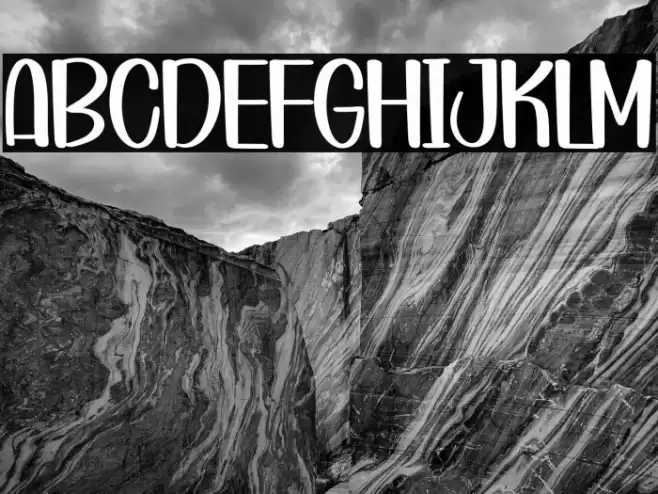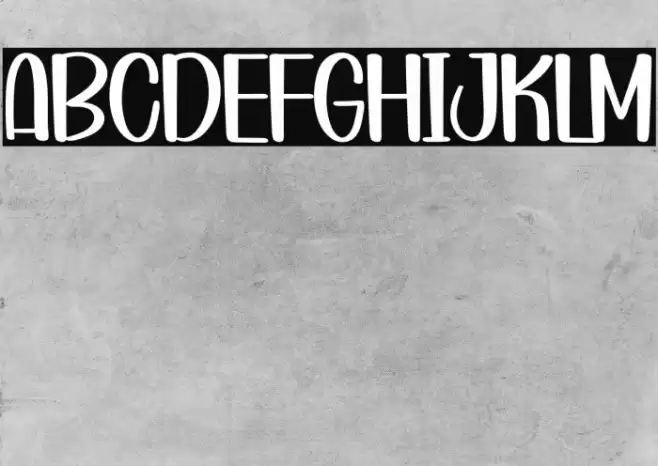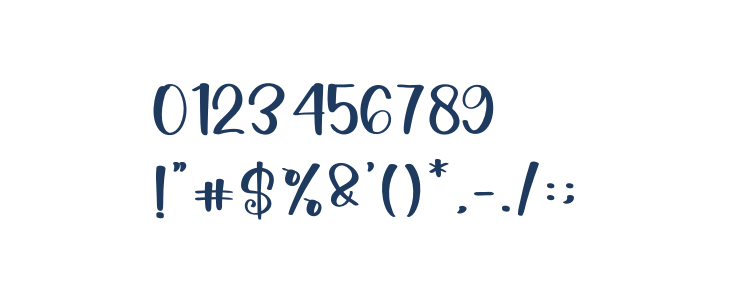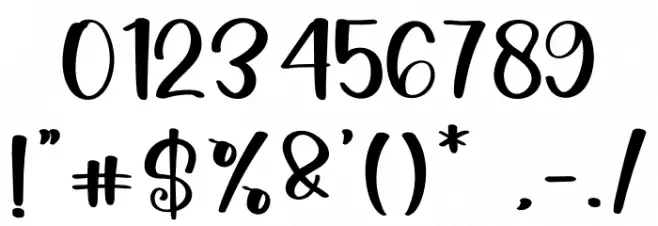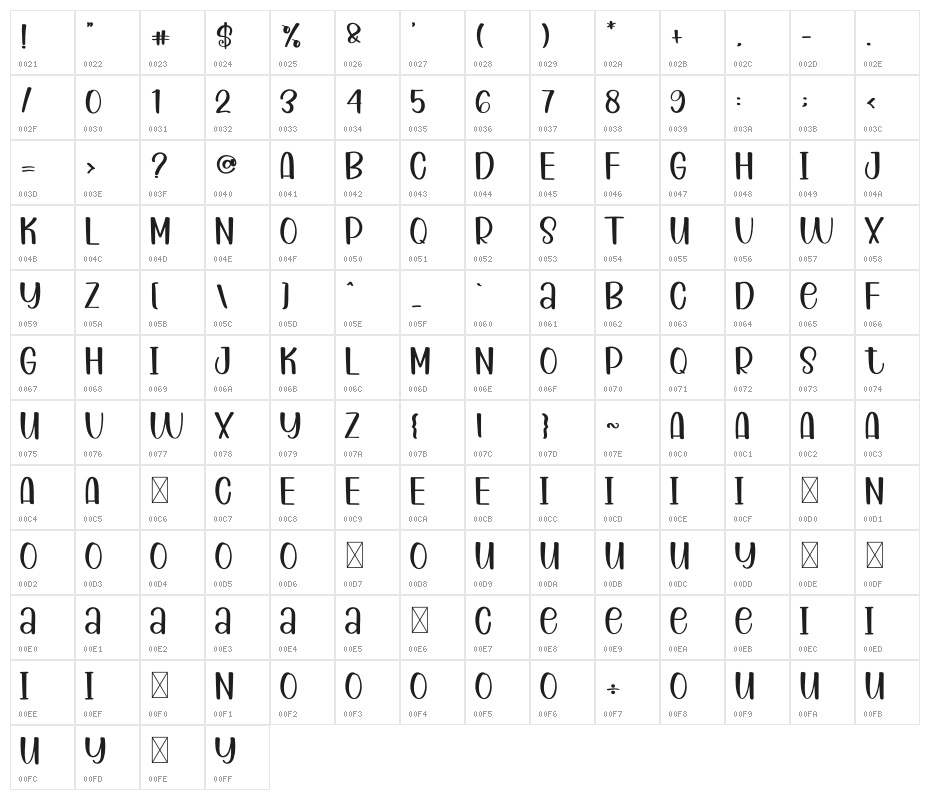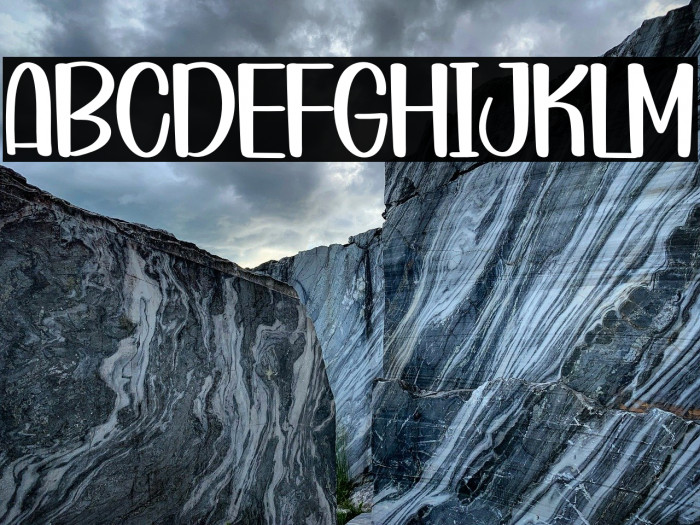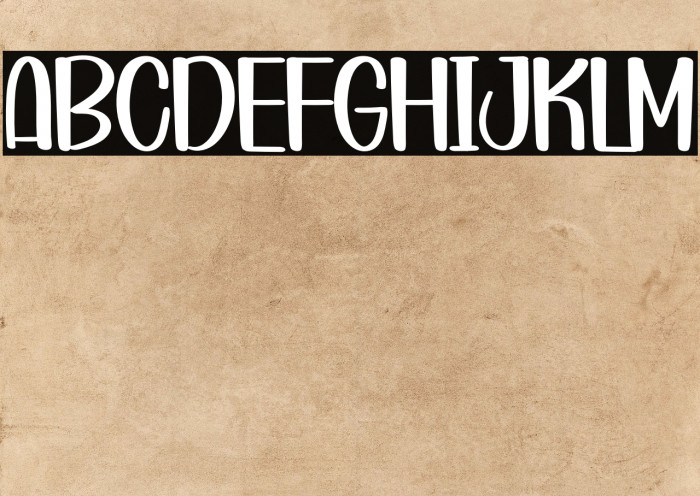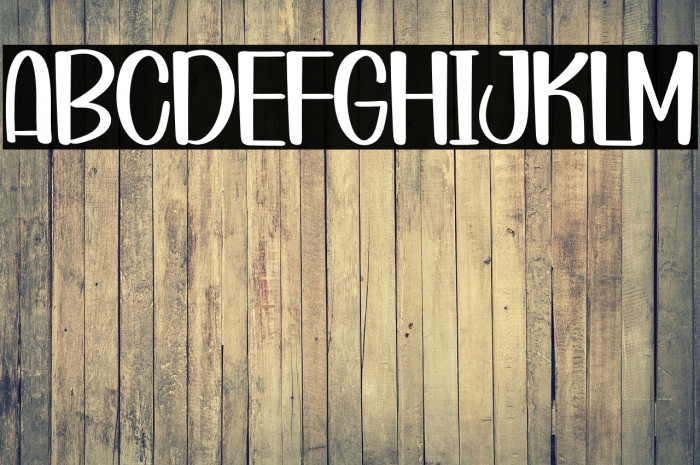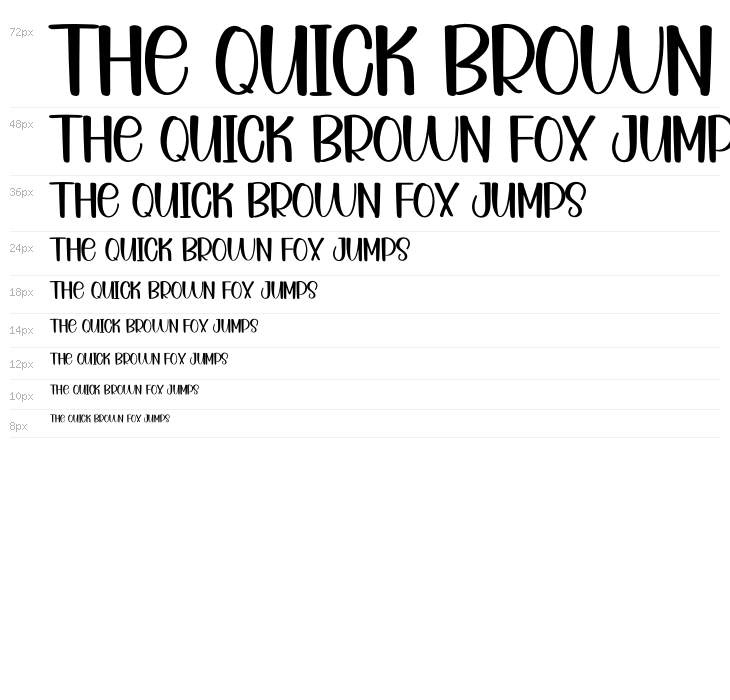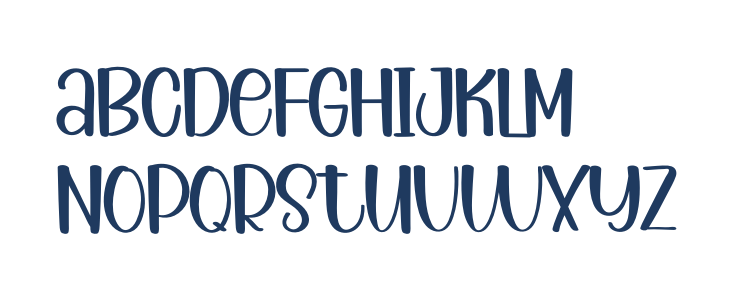
Krispy Burger Font
Krispy Burger Description
This playful and bold font features a unique blend of rounded and sharp edges, creating a whimsical yet structured appearance. The uppercase letters are characterized by their thick strokes and slight slant, giving them a dynamic and lively feel. The lowercase letters maintain this playful aesthetic with a consistent stroke width, enhancing readability while adding a touch of fun. Numbers and special characters follow the same design principles, ensuring a cohesive look across all text elements. The font's overall style is both modern and decorative, making it suitable for various creative projects.
A playful, bold font with rounded edges and a whimsical style from Uncategorized fonts.
- Font: Krispy Burger
- Proposed Projects: Ideal for children's books, playful branding, event invitations, and creative posters.
- Overall Style: Modern, Decorative